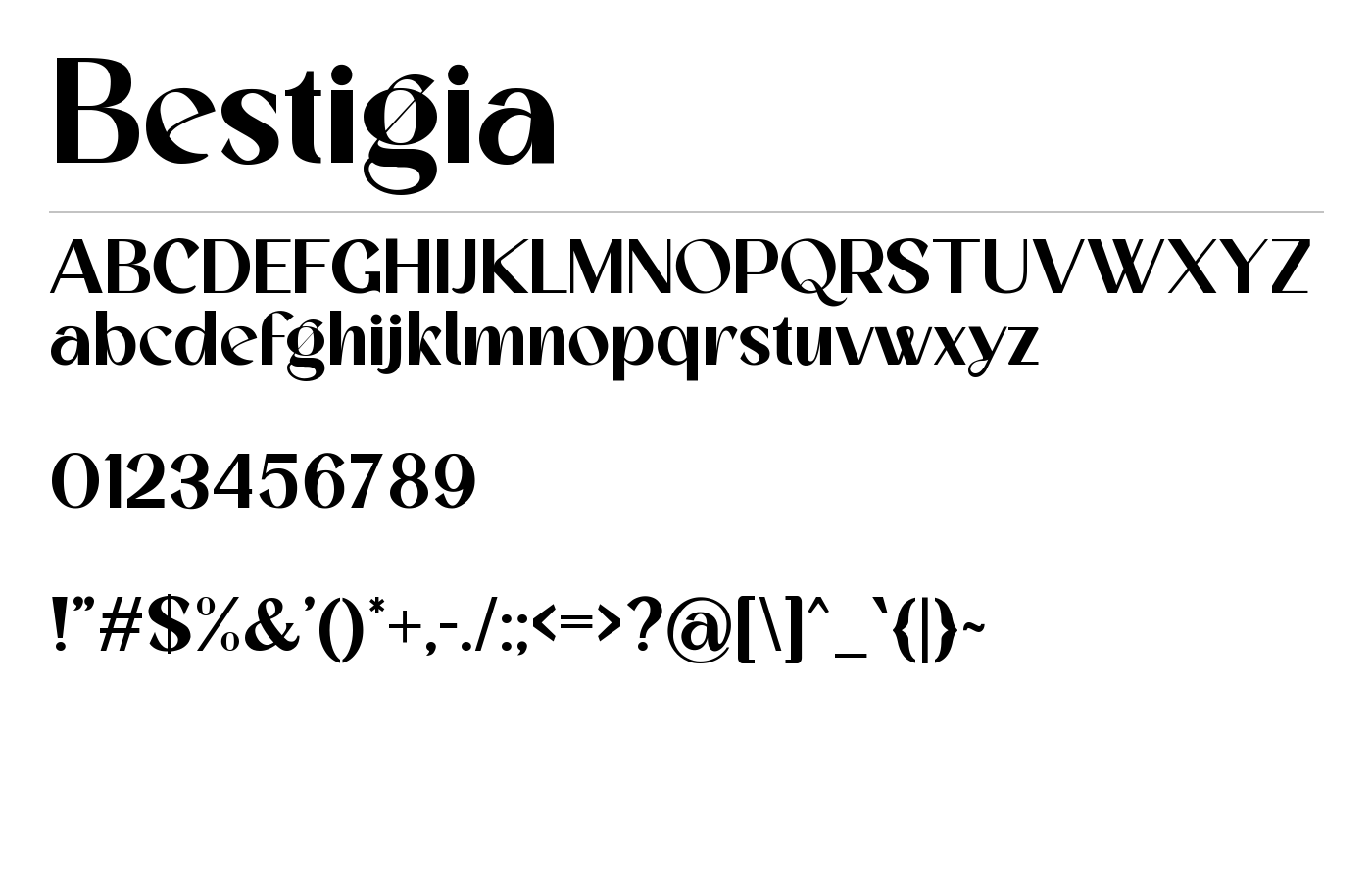
Bestigia is a modern serif font that blends elegant high contrast strokes with unique, artistic details, such as stylized terminals and distinct letterforms like the single-story 'g' and elaborate 'Q' tail. Its refined look combines luxury and sophistication, making it ideal for fashion branding, editorial headlines, and upscale packaging where a stylish, contemporary serif voice is desired. This font stands out with its sharp, confident character while maintaining readability and a chic, modern flair.
Bestigia Font
About Bestigia Font
| Font family | Bestigia Font |
| Designer | Rony Rizki Jaya |